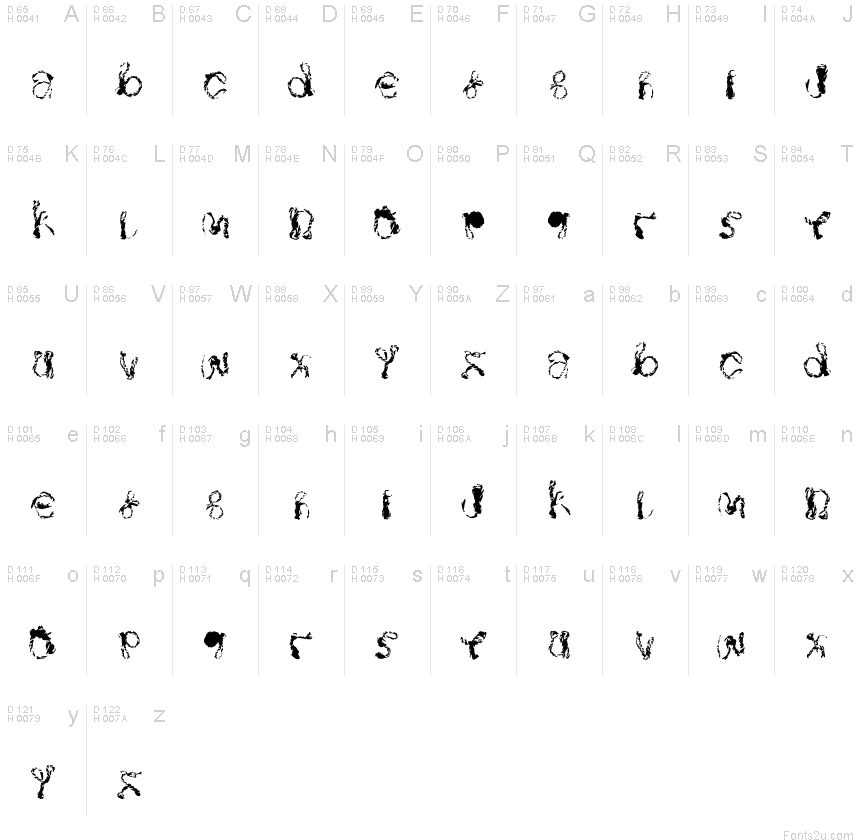
Twistbraid is a free distorted display font with letters that look twisted, scraped, and partly torn apart. Its strokes shift abruptly between dense patches and thin, frayed marks. Uneven edges keep the forms restless and raw.
It can turn a horror title into something resembling damaged tape or tangled strips. That rough silhouette also suits Halloween posters, metal merchandise, and unsettling game graphics. The shredded texture connects these uses to decay, psychological horror, and grim underground music.
Twistbraid